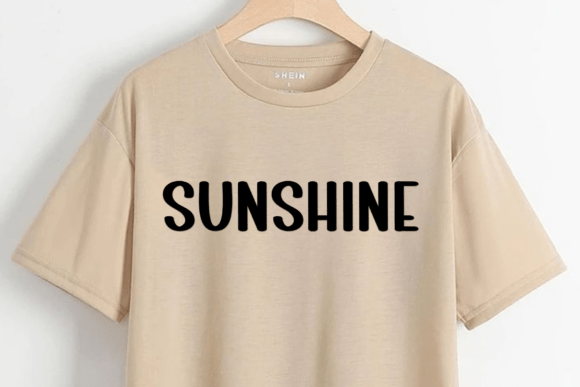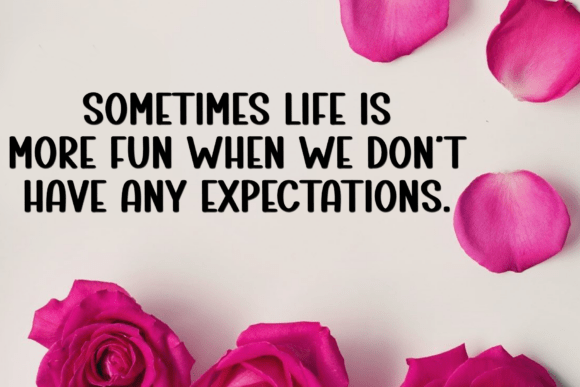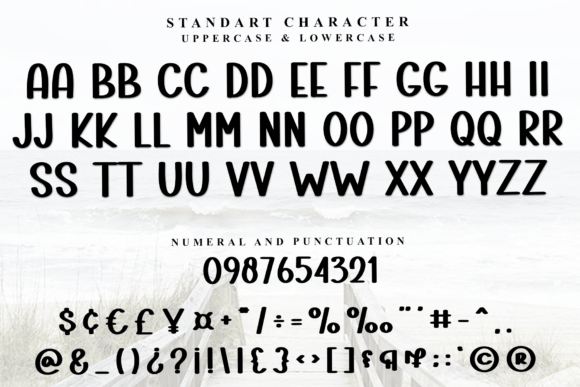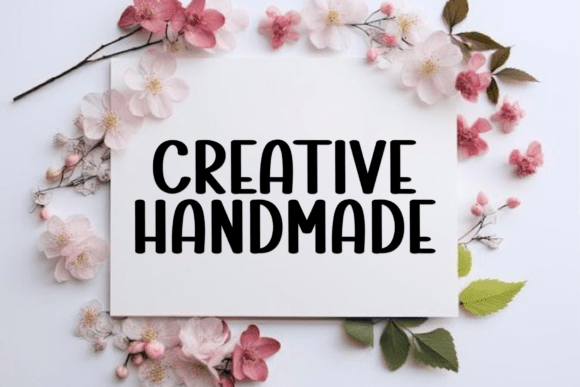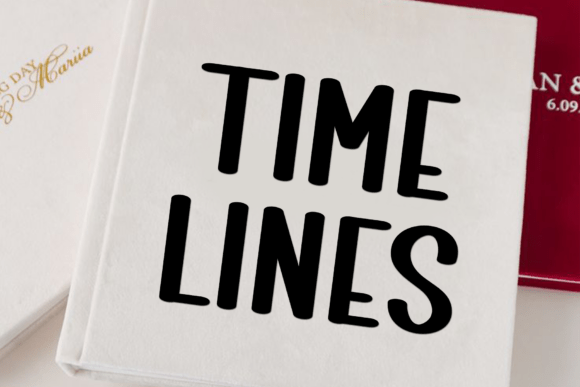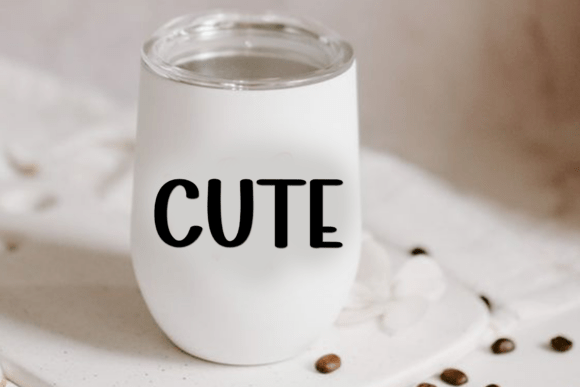
Introduction to Launching Product Font
Have you ever been in the midst of a creative project, staring at a blank canvas, and suddenly, the perfect font pops into your head? That’s exactly what happened to me when I discovered Launching Product Font. Its unique, soft strokes instantly captivated me, and I knew I had to dive deeper into this beautiful design resource.
As a designer, finding the right font can make all the difference between a mediocre and a stunning design. That’s why I’m excited to share with you the Launching Product Font, a high-quality, versatile font that’s perfect for a wide range of creative projects. With its transparent background and elegant strokes, it’s a game-changer for designers looking to elevate their work.
- High-Quality Design Resource: A collection of unique and stylish fonts designed to elevate any creative project.
- Transparent Background: Each font comes with a transparent background, making it easy to integrate into any design without visual clutter.
- High Resolution: Fonts are designed at 300 DPI, ensuring crisp and clear typography even in high-resolution designs.
- Unique Characteristics: Each font features a distinct style and flair, making it perfect for designers looking to add a touch of personality to their creative project.
- Perfect for Creative Projects: Whether it’s a logo, poster, or brochure, this font is designed to help bring your creative vision to life.
Honest Review: Launching Product Font
I recently came across the Launching Product Font, and I must say it’s been a game-changer for my design projects. This font is perfect for anyone looking to add a touch of professionalism to their creative work.
- ✨ High-quality design that looks sleek and modern
- ✨ Suitable for a wide range of creative projects, from business cards to marketing materials
- ⚠️ Limited options for customizing the font’s style and layout
- ⚠️ Not ideal for designs that require a transparent background, as the font may not display correctly
Overall, I’m impressed with the Launching Product Font. It’s a reliable design resource that can elevate any creative project. While it may have some limitations, its benefits far outweigh its drawbacks.
Launching Product Font
Launching Product Font is a versatile design resource perfect for creative projects. This high-quality font features a transparent background, making it easy to use in various design applications.
Launching Product Font is perfect for:
- Branding projects